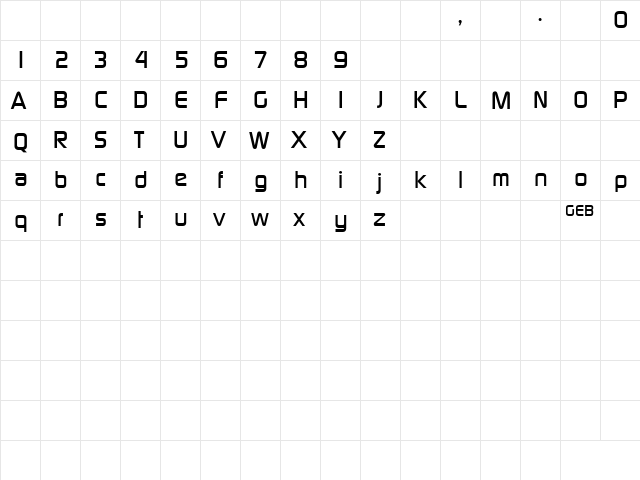
TQF_PCMedium Regular Font Preview
TQF_PCMedium Regular
Design Context for TQF_PCMedium Typeface
TQF_PCMedium is a composed and adaptable typeface that performs quietly and consistently across a wide range of design contexts.